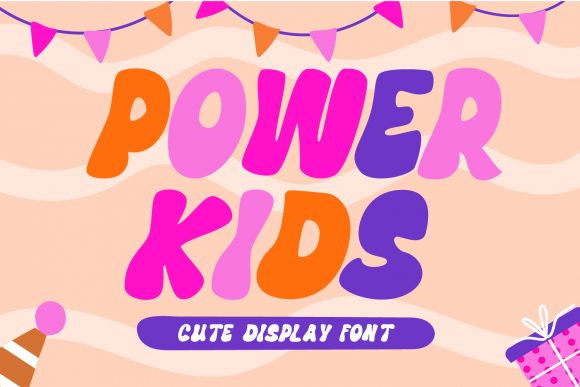
Introducing Power Kids Font - The Ultimate Display Board Font for Unleashing Your Creative Genius
In a world saturated with monotonous fonts, Power Kids Font emerges as a breath of fresh air, bringing a unique blend of boldness and playfulness to your design projects. This remarkable display font, meticulously crafted by the talented OKEVECTOR, is a game-changer for designers seeking to captivate audiences with their captivating creations.
Power Kids Font is not just another font; it's a gateway to a world of limitless creativity, where each letter dances with energy and personality. Whether you're designing posters, flyers, social media graphics, or eye-catching headlines, Power Kids Font will elevate your designs to unprecedented heights.
Step into a realm where fonts take on a life of their own, where every word carries a story, and every design tells a tale. Power Kids Font is your passport to this enchanting realm, empowering you to craft designs that resonate with your audience on a deeper level.
With its thick, bold letters and playful curves, Power Kids Font possesses an irresistible charm that will leave a lasting impression on anyone who encounters your designs. It's the perfect choice for conveying messages that demand attention, messages that ignite imaginations and spark conversations.
Whether you're a seasoned design professional or just starting your creative journey, Power Kids Font is your perfect companion. Its user-friendly nature makes it accessible to designers of all skill levels, while its versatility allows for endless creative possibilities.
Join the ranks of creative visionaries who have embraced Power Kids Font to elevate their designs and leave an unforgettable mark on the world. Let your creativity soar, let your designs shine, and let Power Kids Font be your trusted ally in this extraordinary adventure.
Embrace the Power Kids Font revolution today and unlock a world of creative possibilities that will leave your audience in awe.